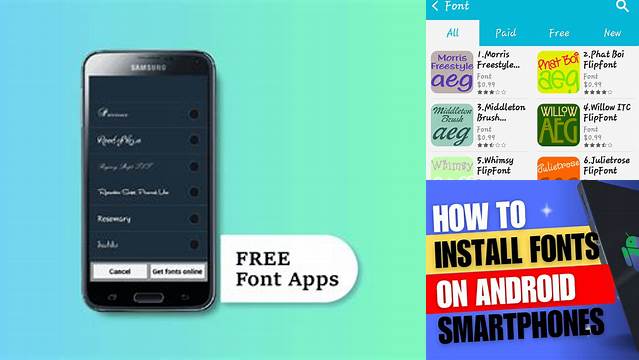
Hey there, font fanatics! 👋 Ever get bored of the same old font on your Android phone? You're not alone! We all love to personalize our devices, and one of the easiest and coolest ways to do that is by changing the font. Luckily, there's a whole universe of cool fonts app for Android out there, ready to transform your phone's look and feel. In this article, we'll dive deep into the world of Android font customization, exploring some of the best apps, and giving you the lowdown on how to make your phone truly your own. Get ready to say goodbye to font fatigue and hello to a fresh, stylish interface! Let's get started and explore the world of the cool fonts app for android.
Alright, guys, let's get down to the nitty-gritty: the actual apps! Finding the perfect cool fonts app for android can feel like searching for a needle in a haystack, but fear not! I've done the heavy lifting for you and compiled a list of the top-rated apps that consistently deliver on style and functionality. We'll break down what makes each app stand out, from the variety of fonts offered to the ease of installation and use. This is where the fun begins, and where you'll start to see your phone's potential for a serious makeover. First on our list is one of the most popular apps for changing your fonts, which provides users with a wide selection of fonts to choose from. Using a cool fonts app for android, users can change their device font system-wide, which means that every text field on their phone will be changed. This gives a unified aesthetic. Many of these apps also have a dedicated section with pre-made themes that bundle different fonts with other elements like wallpapers and icons. This saves you time in the customization process and also offers a variety of ready-made choices. What's more, these apps are simple to use, with an intuitive interface, that allows you to easily change your fonts. It makes it so easy for you, as all you need to do is to follow their instructions. Most font apps offer a preview of the fonts before you apply them, so you can try them and see how they look before applying the changes, which avoids any regret later! These features are great, but these apps often include different font styles and other customization options to elevate your mobile experience. With these cool fonts app for android, you can give your phone a complete makeover.
These apps offer a vast library of fonts, covering everything from elegant serifs to quirky, modern styles. You'll find options to suit any taste, whether you're looking for something clean and professional or bold and playful. Many apps also regularly update their font collections, ensuring you always have fresh choices. The installation process is generally straightforward, with clear instructions guiding you through each step. Most apps require you to grant certain permissions to access system settings, which is necessary for the font changes to take effect. Once the font is applied, you can usually revert to the default font with a single tap, so you can experiment without worrying about messing up your phone. Moreover, these apps usually offer a preview feature, letting you see how a font will look before you commit. This is super helpful in avoiding any font regrets! And the best part? Many of these font apps are free to download and use, offering a fantastic value for the customization you get. Sure, some might have in-app purchases for premium fonts, but the free options are often more than enough to get you started. With a cool fonts app for android, your device can be refreshed.
Beyond just offering fonts, many of these cool fonts app for android go the extra mile with additional customization options. Some apps include features like font size adjustment, allowing you to fine-tune the readability of your text. This is especially handy if you have trouble seeing smaller fonts or simply prefer a different font size. Others offer the ability to customize the font's appearance in specific apps, providing a tailored experience. You might want a playful font for your social media apps and a more professional font for your work emails. This level of customization allows for a truly personalized mobile experience, that makes your device stand out from the crowd. And let's not forget the themes! Many apps come with pre-designed themes that bundle fonts with matching wallpapers, icons, and other design elements. This is perfect for users who want a complete makeover without the hassle of choosing each element individually. These themes can transform your phone's entire look in an instant, giving it a cohesive and stylish vibe. Imagine having a sleek, minimalist theme one day and a vibrant, colorful theme the next – all thanks to the power of font apps! And, of course, these apps are regularly updated with new fonts, features, and themes. The developers are constantly working to enhance the user experience and keep things fresh, so you'll never run out of options. With all these options, it is easy to see why a cool fonts app for android is so popular.